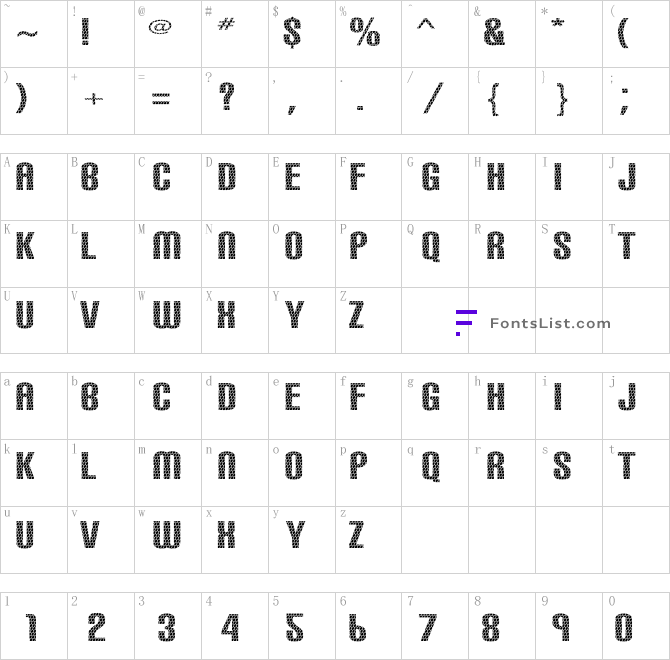
- Font Name:Carbon Phyber
Carbon-Phyber.ttf is a very beautiful artistic font, Carbon-Phyber.ttf is widely used in the design and printing of various books and pictures,Carbon-Phyber.ttf has a strong visual impact,Carbon-Phyber.ttf is a commonly used font in newspapers, magazines and books, and is used in posters, e-commerce Poster design, store design, logo design, font design and other fields.Carbon-Phyber.